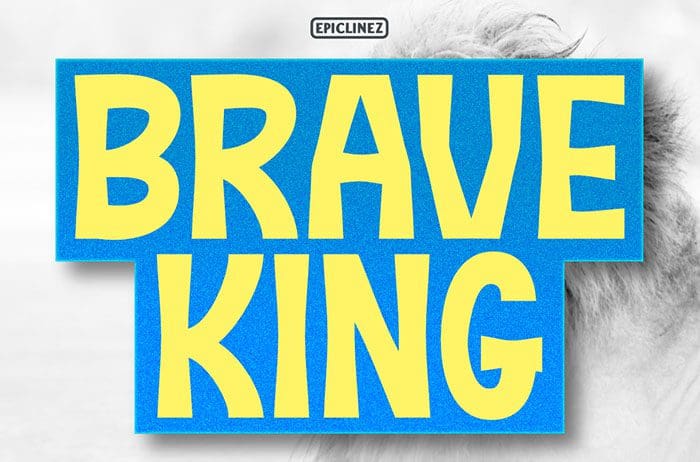
Brave King Display Font
Brave King display font, carefully handcrafted to become a true favorite. Its casual charm makes it appear wonderfully down-to-earth, readable and, ultimately, incredibly versatile. This font is available only for personal use. Created this font by Epiclinez. You can also search more free Display Fonts. Thanks!